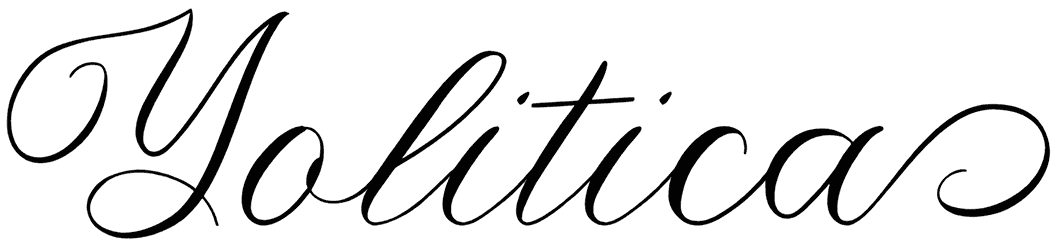
Miarlem Font
You can introduce your brand in the best possible way by choosing a magical script font such as Miarlem for designing posters, logos, web pages, or banner ads. This handwritten font can cover all weaknesses of your content by adding a feeling of softness, delicacy, or momentum to it.
Designed by: Pen Culture